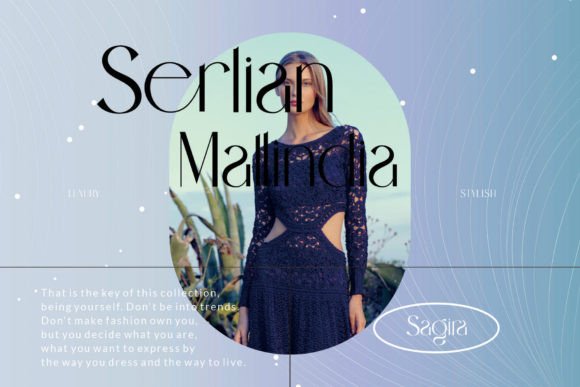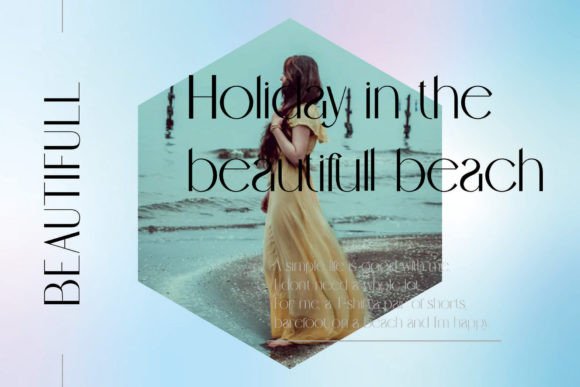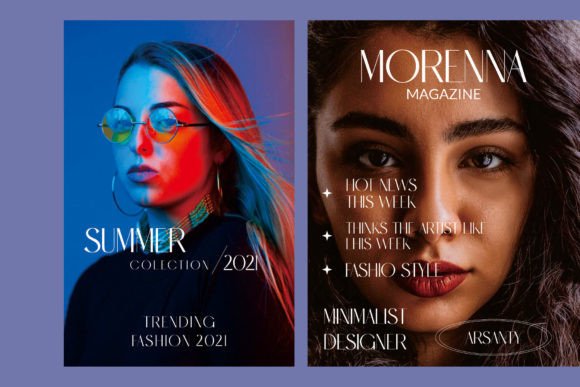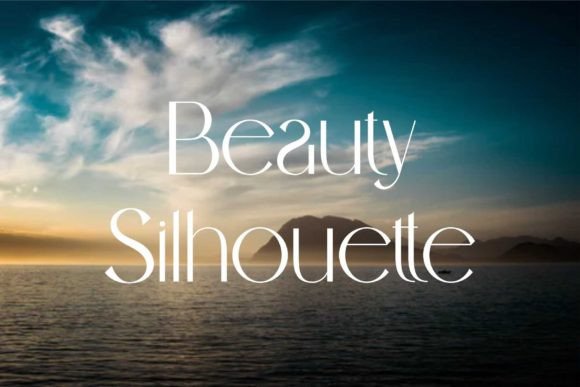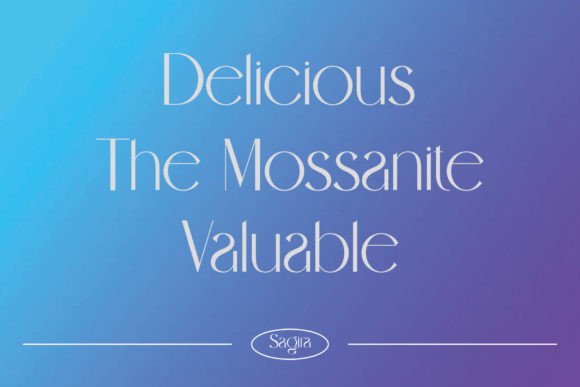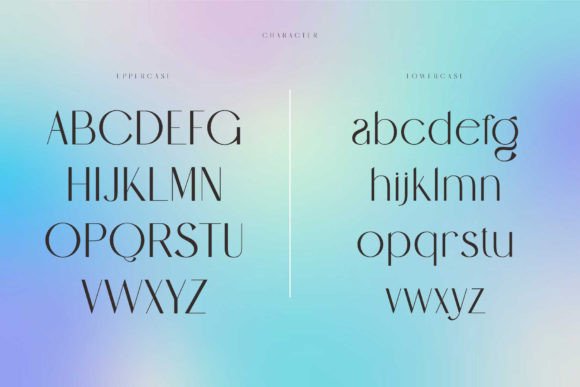
Introduction to Sagira Font
**Sagira** Modern Sans Serif Typeface inspired by the famous minimalist logo perfect for the purposes of designing templates, brochures, videos, advertising branding, logos, invitations, layout design, elegant crafting, beauty design, and others.
This font is PUA encoded which means you can access all of the amazing glyphs and ligatures with ease .